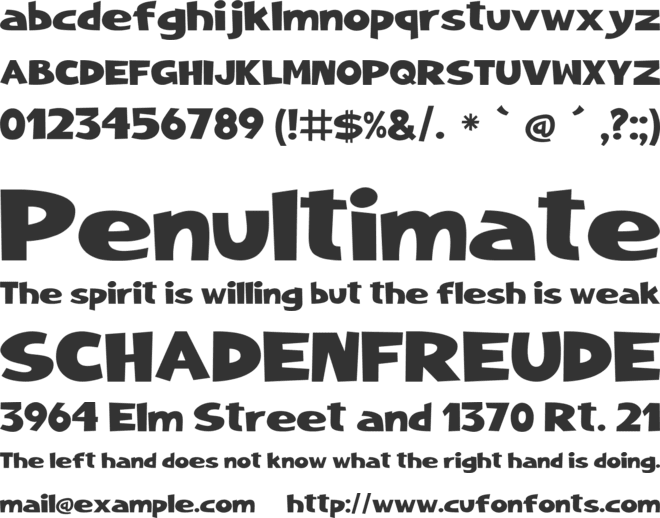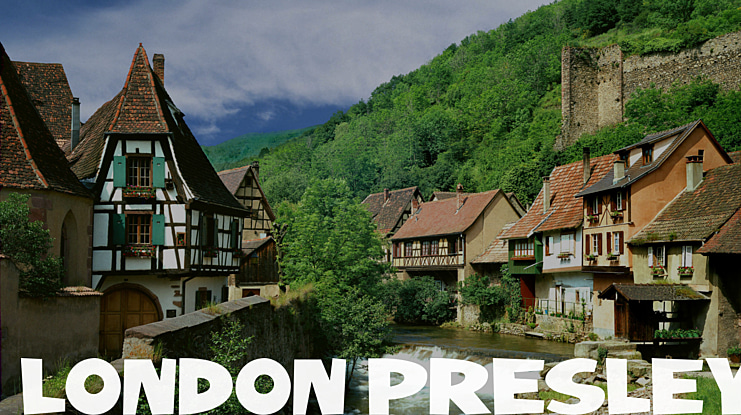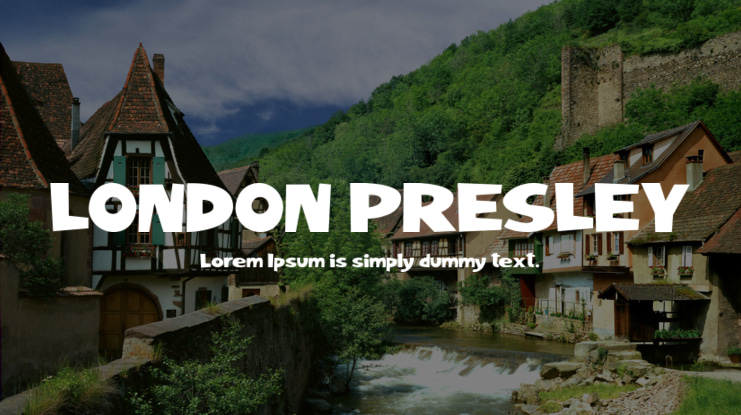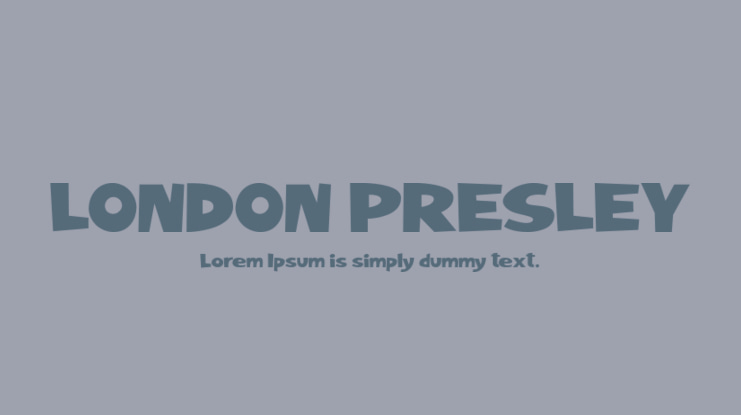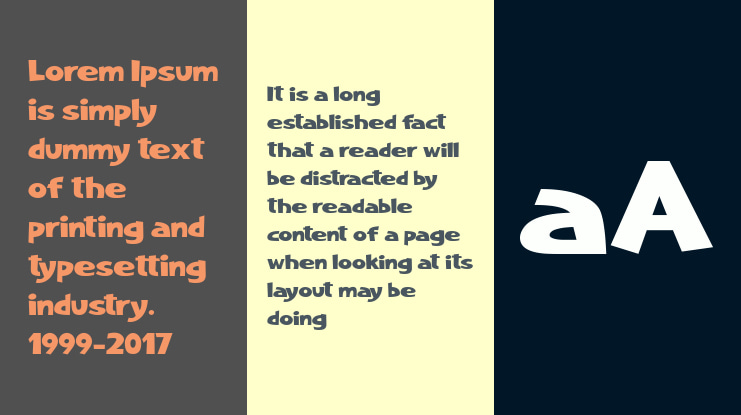
LONDON PRESLEY is a typeface freely inspired by The Clash’s «London Calling» iconic cover (1979), which is itself inspired by Elvis Presley first album (1956).
Designed by Julian Gudowski.